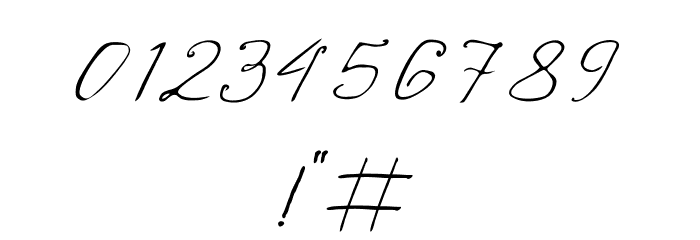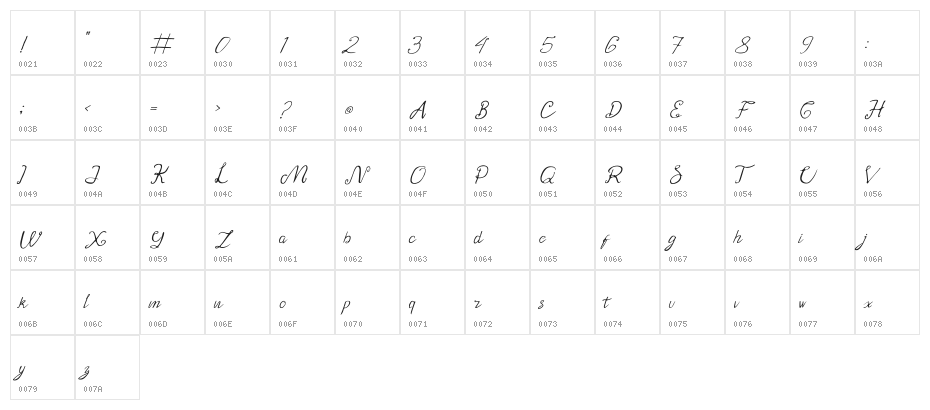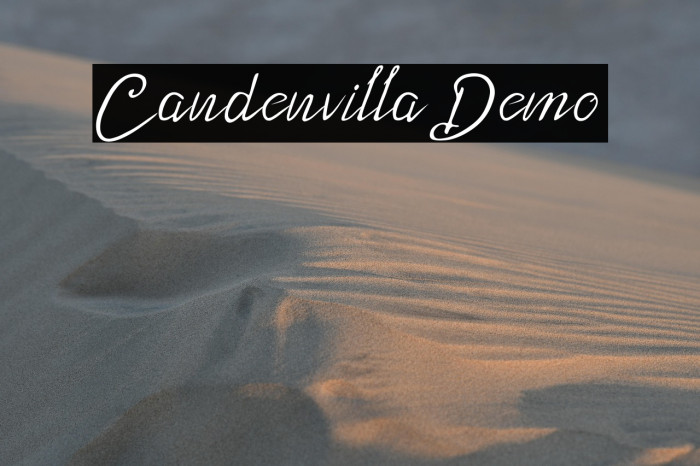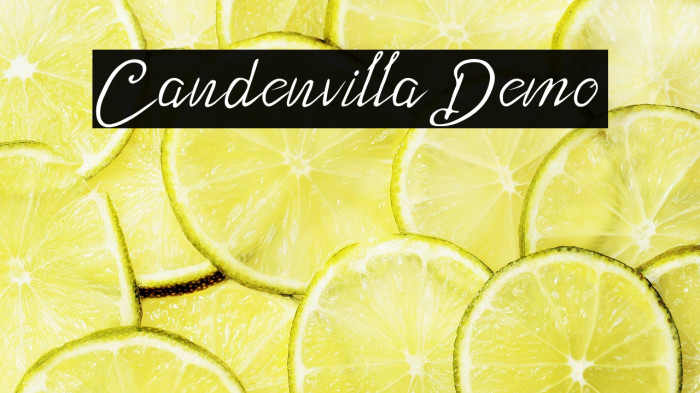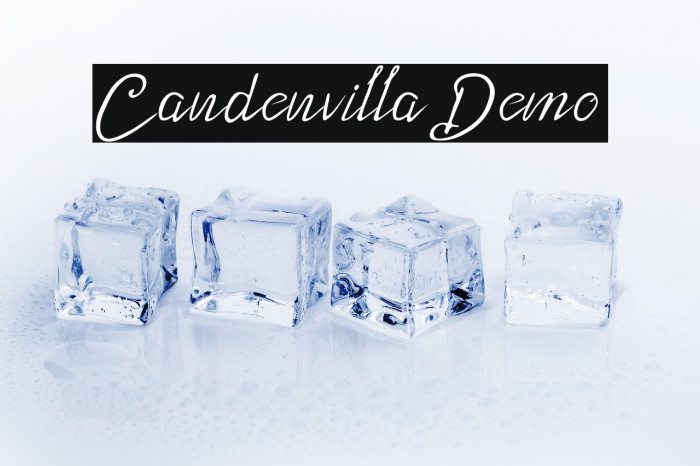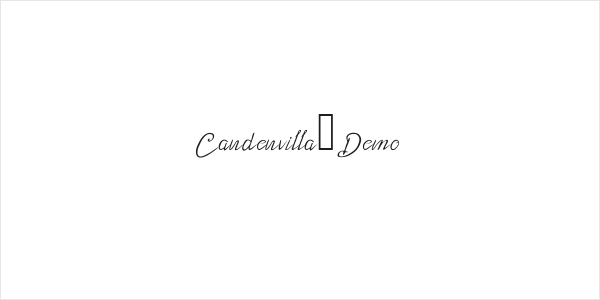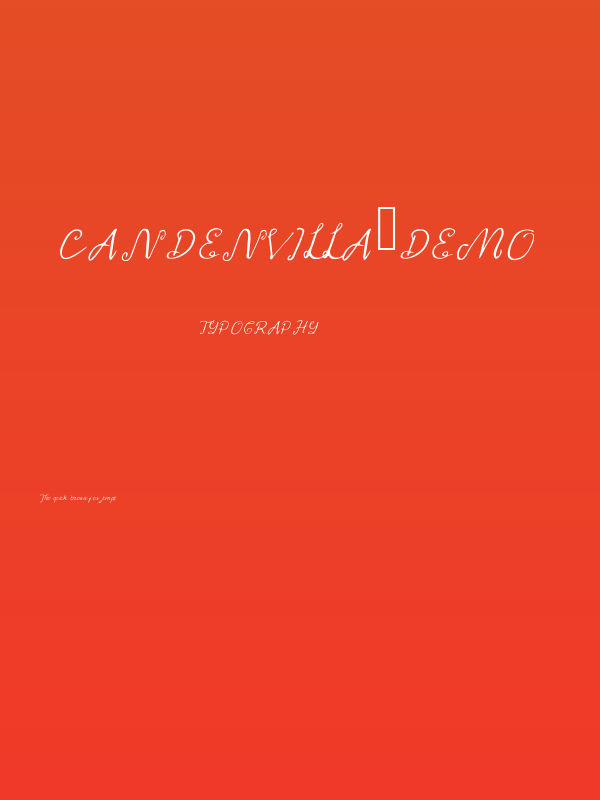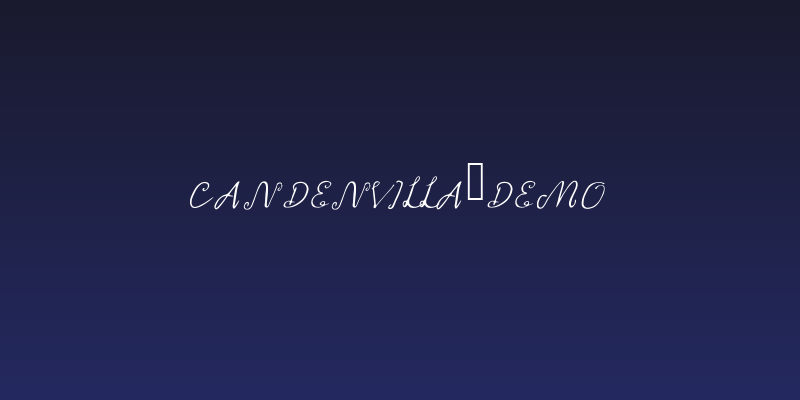
Candenvilla_Demo Font
Candenvilla_Demo Description
This elegant script font features a flowing, cursive style with delicate loops and swashes. The uppercase letters are ornate, with a graceful flair that adds a touch of sophistication. The lowercase letters maintain a consistent flow, enhancing readability while retaining the decorative essence. Numbers and special characters are designed with the same attention to detail, ensuring a cohesive look across all text. The font's overall appearance is both classic and stylish, making it suitable for formal invitations, branding, and other creative projects that require a touch of elegance.
| Use Case | Headlines, Invitations, Branding |
| Proposed Projects | Ideal for wedding invitations, elegant branding, greeting cards, and luxury product packaging. |